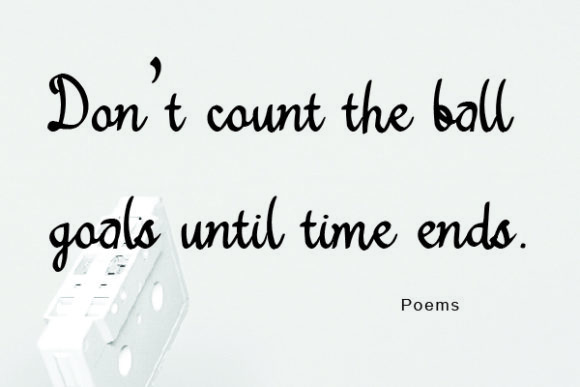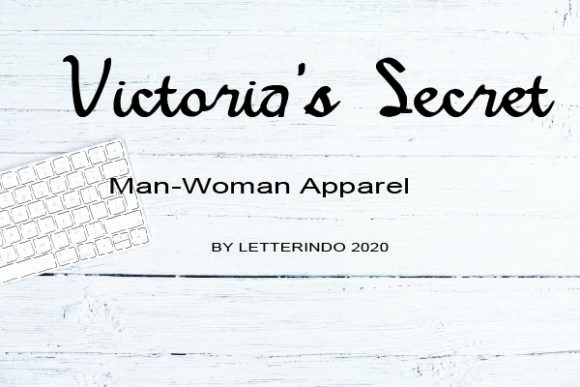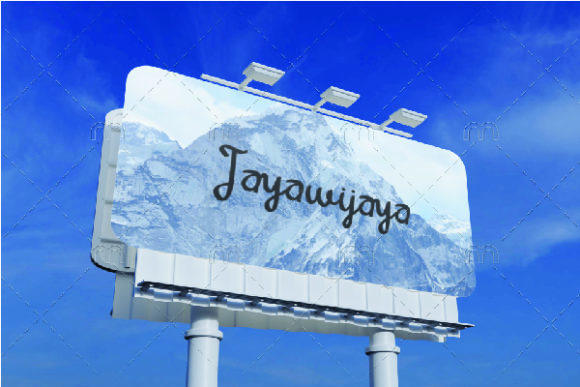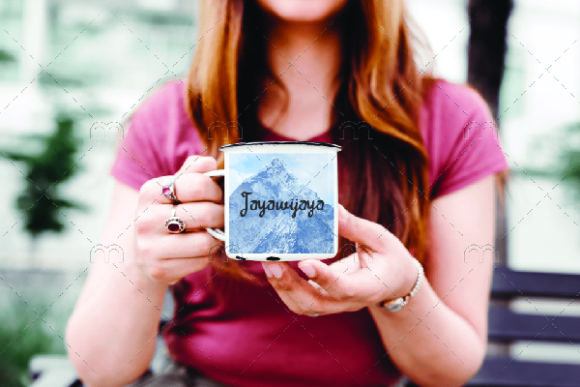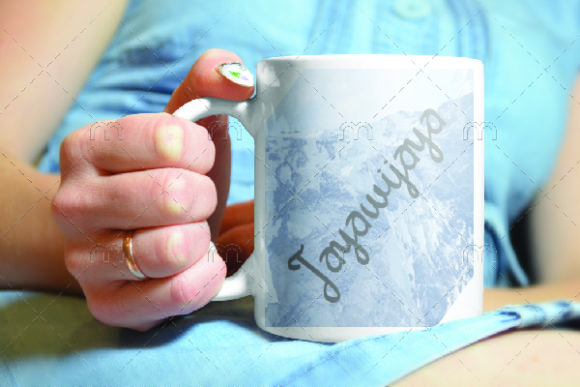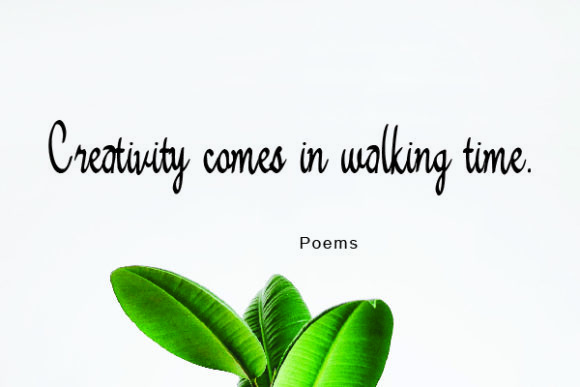
Introduction to Jayawijaya Font
Jayawijaya is an exquisite handwritten font created with the help of a brush pen.
With a neat and simple calligraphy, this font is incredibly versatile and will give a spectacular look to your design projects .